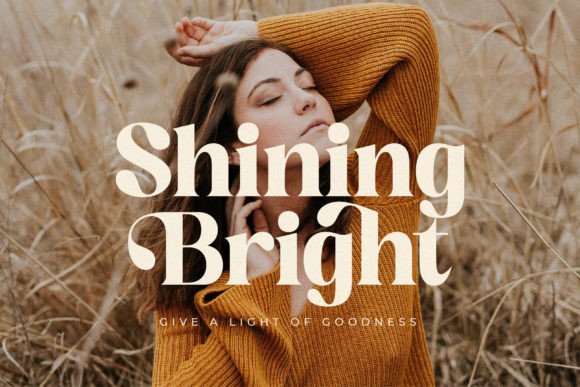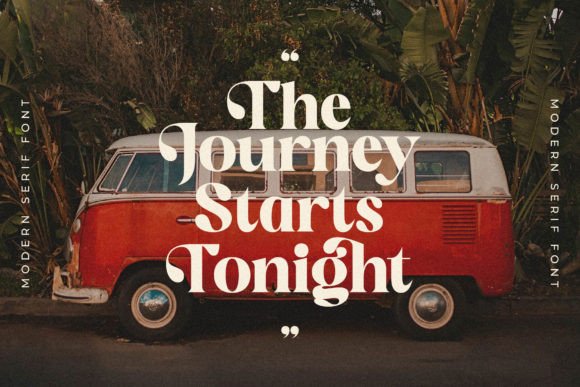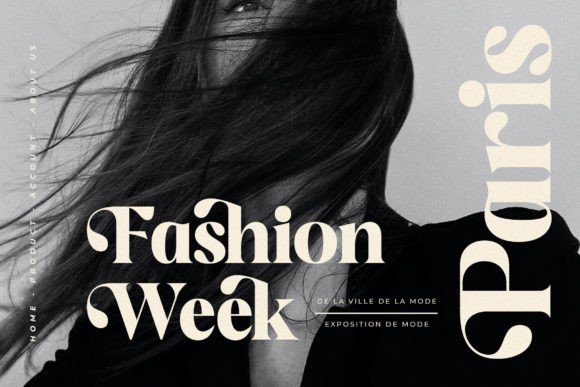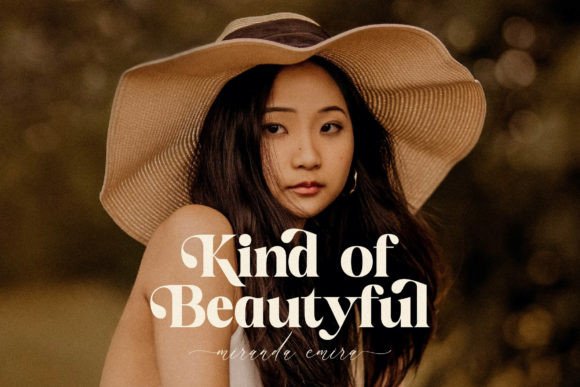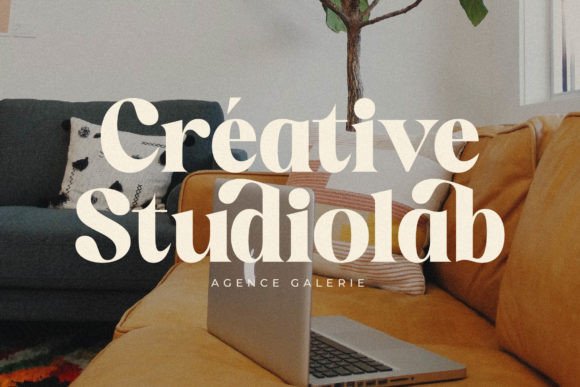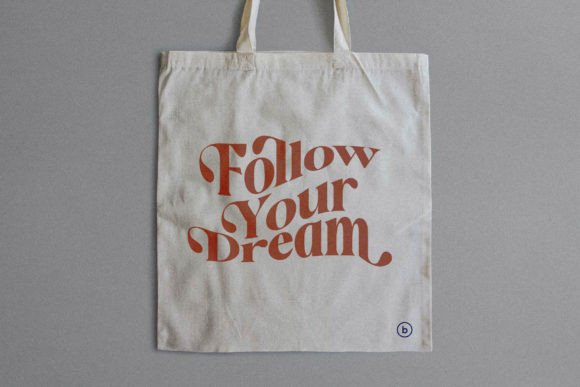
Introduction to Minal Font
Remember the thrill of scrolling through design inspiration boards, finally stumbling upon that perfect font that elevates your entire creative project? For many designers, that moment is what drives their passion for creating something truly unique and eye-catching. For me, that moment came when I discovered the Minal Font – a stylish and fashionable serif font that instantly added a touch of sophistication to any design.
As a valuable design resource, Minal Font offers a unique blend of modernity and elegance, making it perfect for a wide range of chic designs. Whether you’re working on a high-quality print project or a creative digital design, this font is sure to impress. And the best part? With its PUA encoding, you can access all of the glyphs and swashes with ease, giving you the freedom to customize your design to perfection.
Key Features of Minal Font
- High-quality design: The font is designed with attention to detail and features a unique, elegant style.
- Unique characteristics: Minal Font features a distinctive, hand-drawn style with subtle imperfections, adding a touch of personality to creative projects.
Honest Review: Minal Font
The first thing that caught my attention was the high quality of the font. The transparent background made it easy to integrate into my design, and the overall aesthetic was modern and sleek. ✨ I particularly liked the versatility of the font, as it worked well in both headings and body text.
- High quality and modern design
- Versatile font that works well in headings and body text
- Limitations:
- May not be suitable for very large text sizes
- Some users may find the font too modern or minimalist
Minal Font
Overview
Minal Font is a high-quality design resource ideal for creative projects requiring a unique touch. With its transparent background, this font can be easily integrated into various digital designs.
Tips for Getting the Most Out of Minal Font
To get the most out of Minal Font, experiment with different font sizes, colors, and combinations to create unique and eye-catching designs.
Minal Font is perfect for:
- Graphic designs and visual content